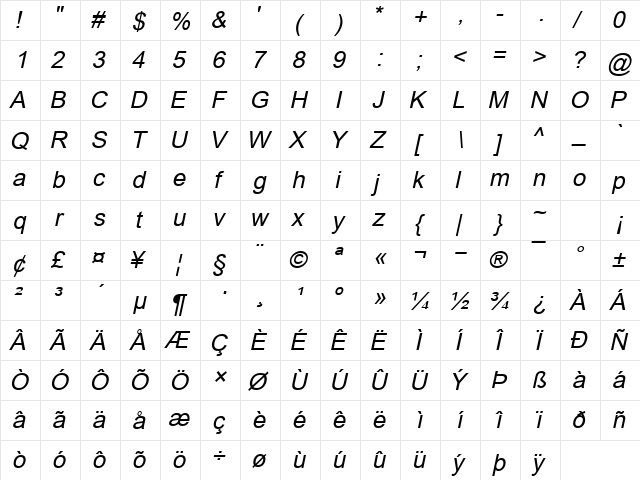
Amaro Arial Italic
Design Context for Amaro Arial Typeface
Amaro Arial takes a measured approach to typography — its balanced proportions and neutral character make it a reliable workhorse for both digital and print work. Its italic angle brings a sense of urgency and motion to the letterforms.
Pro Tip: Try Amaro Arial for annotation and caption copy alongside an upright companion — the contrast in angle creates a dynamic but ordered typographic system.